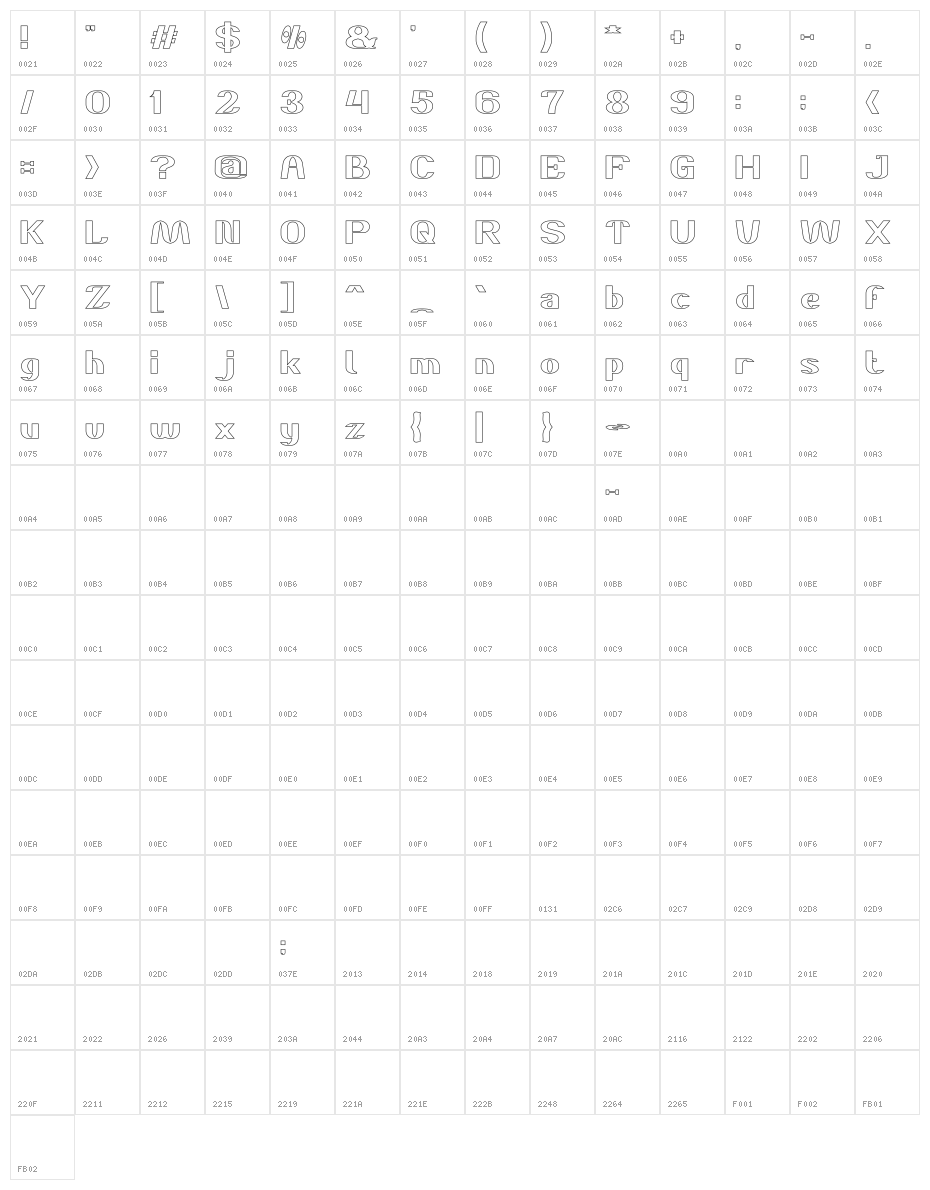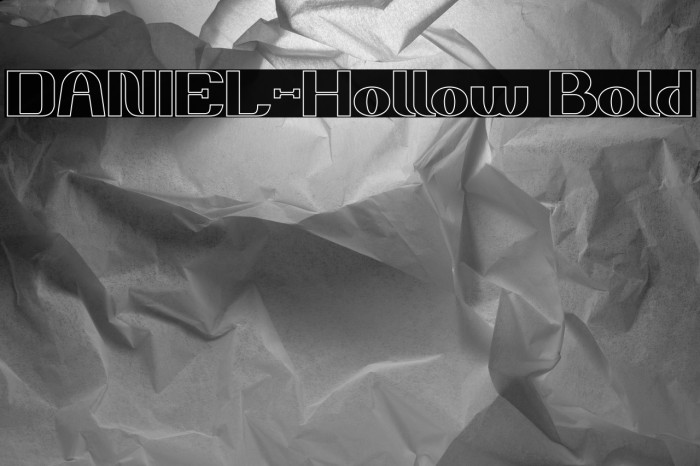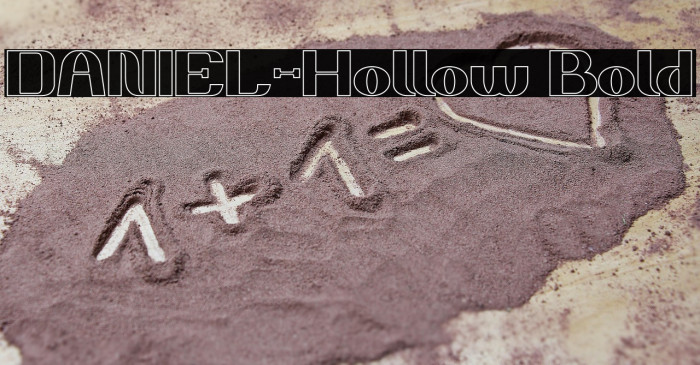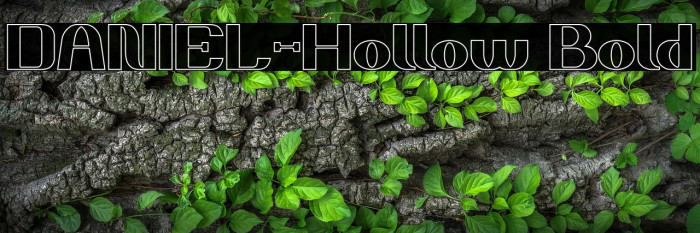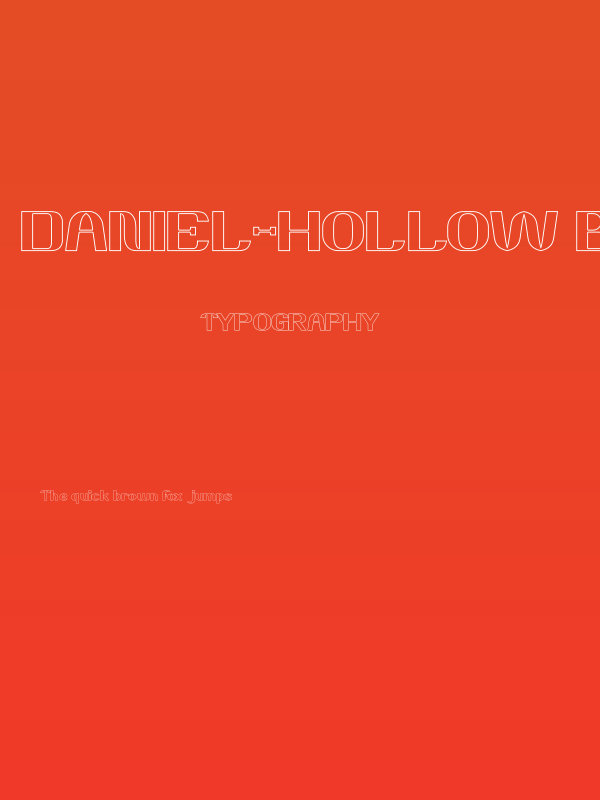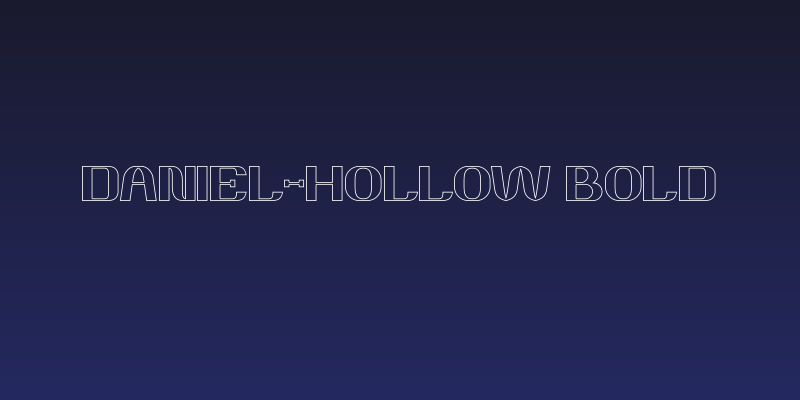
DANIEL-Hollow Bold Font
DANIEL-Hollow Bold Description
This font features a bold, hollow design that gives it a distinctive and eye-catching appearance. The uppercase and lowercase letters maintain a consistent width, creating a uniform look across the alphabet. The hollow aspect of the font adds a modern twist, making it suitable for contemporary design projects. The characters are well-defined with clean lines, ensuring legibility even at smaller sizes. The numbers and special characters follow the same hollow style, providing a cohesive look throughout. This font is ideal for projects that require a bold statement without overwhelming the viewer.
| Proposed Projects | Ideal for logos, posters, headlines, and branding materials that require a bold and modern look. |